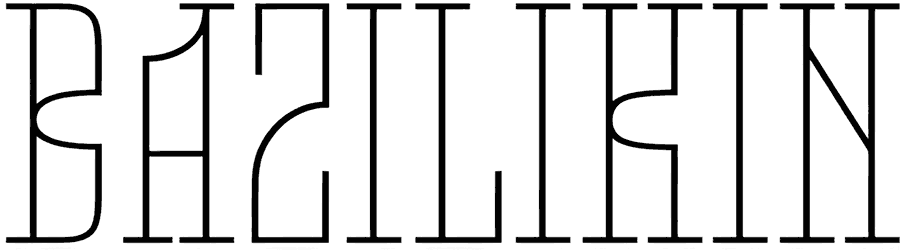
Bazilikin Font
Adding a foreign look to graphic content would be a practical way to increase the visibility of artwork such as movie posters, flyers, brochures, logos, and branding projects.
So we offer you to include a Russian font like Bazilikin and take advantage of its four distinctive styles. Aside from its versatility, this font has the ability to establish a sense of eerie, dynamic, professionalism, and precision.
Bazilikin is a variable font inspired by Romanesque architecture and Cyrillic calligraphy (Vyaz), from thin to bold, symbolizing the skeleton and mainstay of architecture. It can be used in classical, sacred or religious situations.